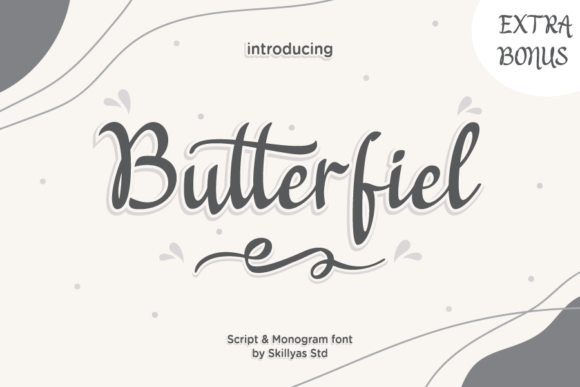
There’s something magical about discovering the perfect font for a project – the way the letters dance across the page, the way it elevates your message, and the way it makes you feel. For designers and crafters, finding that special font can be a game-changer. It’s a moment of pure creative joy, when everything comes together and you know you’ve got something truly special.
That’s exactly what you get with the Butterfiel Script Font, a stunning pair of fonts designed to complement each other perfectly. Whether you’re working on a wedding invitation, a children’s book, or a social media graphic, this font is sure to add a chic and cheery touch to your design. With its PUA encoding, you’ll have access to all the glyphs and swashes you need to create truly unique and eye-catching designs.
Key Features of Butterfly Script Font
- Unique Characteristics: Butterfly Script Font features a beautiful, flowing script style with subtle flourishes and connections between letters, creating a elegant and sophisticated look.
- Font Weight: The font comes in a single weight, providing a consistent and harmonious look across all text sizes.
Butterfield Script Font Review
I recently had the chance to work with Butterfield Script Font, and I have to say, it’s a beautiful addition to any design project. ✨ The elegant, handwritten feel of this font is perfect for creating a warm and inviting atmosphere, making it ideal for projects like wedding invitations, menus, or any other materials where you want to convey a sense of luxury and sophistication.
Here are some of the things I like about Butterfield Script Font:
- Its elegant and refined feel makes it perfect for high-end projects
- The font is highly legible, even at small sizes, making it a great choice for body text
- It’s highly versatile and can be used for a wide range of projects, from formal to informal
- ⚠️ The font may not be suitable for projects that require a lot of emphasis on clarity and readability, as its flowing lines can make it difficult to distinguish between letters
- ⚠️ The font may not be ideal for projects that require a lot of text, as it can be time-consuming to set and may not be the most efficient choice
Overall, I would highly recommend Butterfield Script Font for any project where you want to add a touch of elegance and sophistication. Just be sure to consider its limitations and use it in a way that complements the rest of your design.
Here are some tips for getting the most out of the Butterfly Script Font:
- Use it sparingly to add a touch of elegance to your designs
- Pair it with a bold font to create contrast
- Experiment with different font sizes and colors to create a unique look
The Butterfly Script Font is ideal for:
- Special occasion cards and gifts
- Branding and marketing materials (e.g. logos, brochures)
Alternatives to Butterfiel Script Font